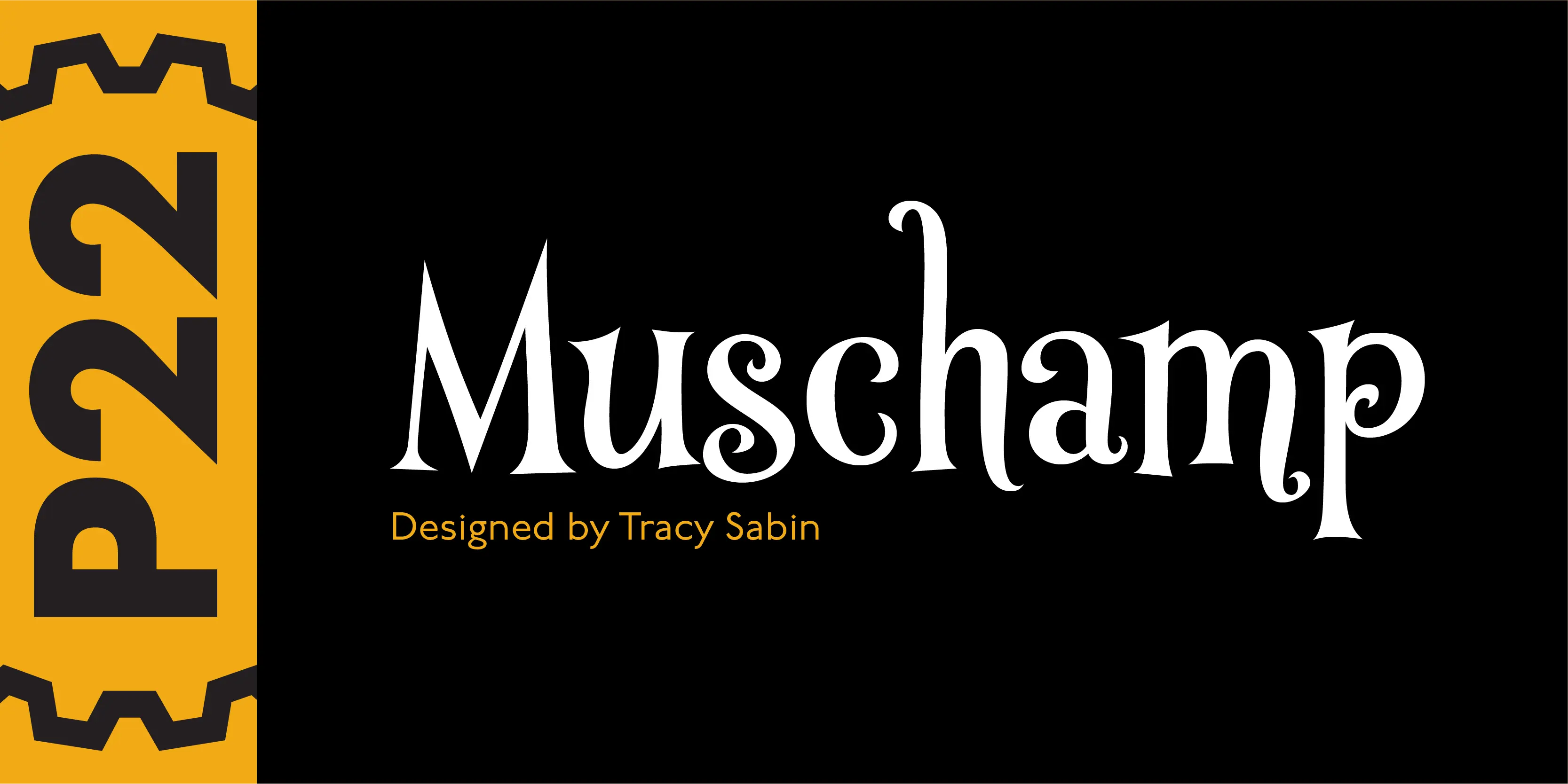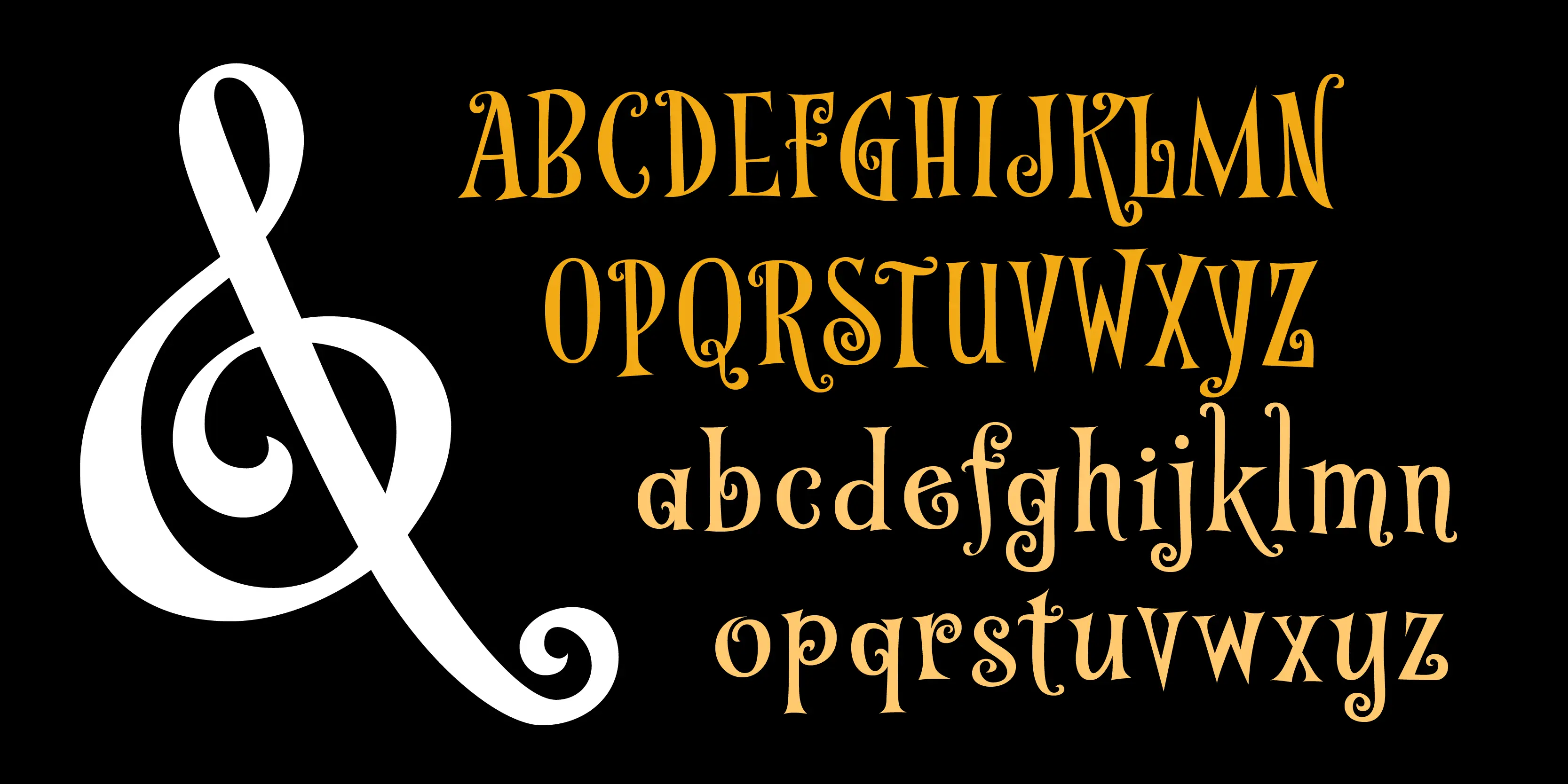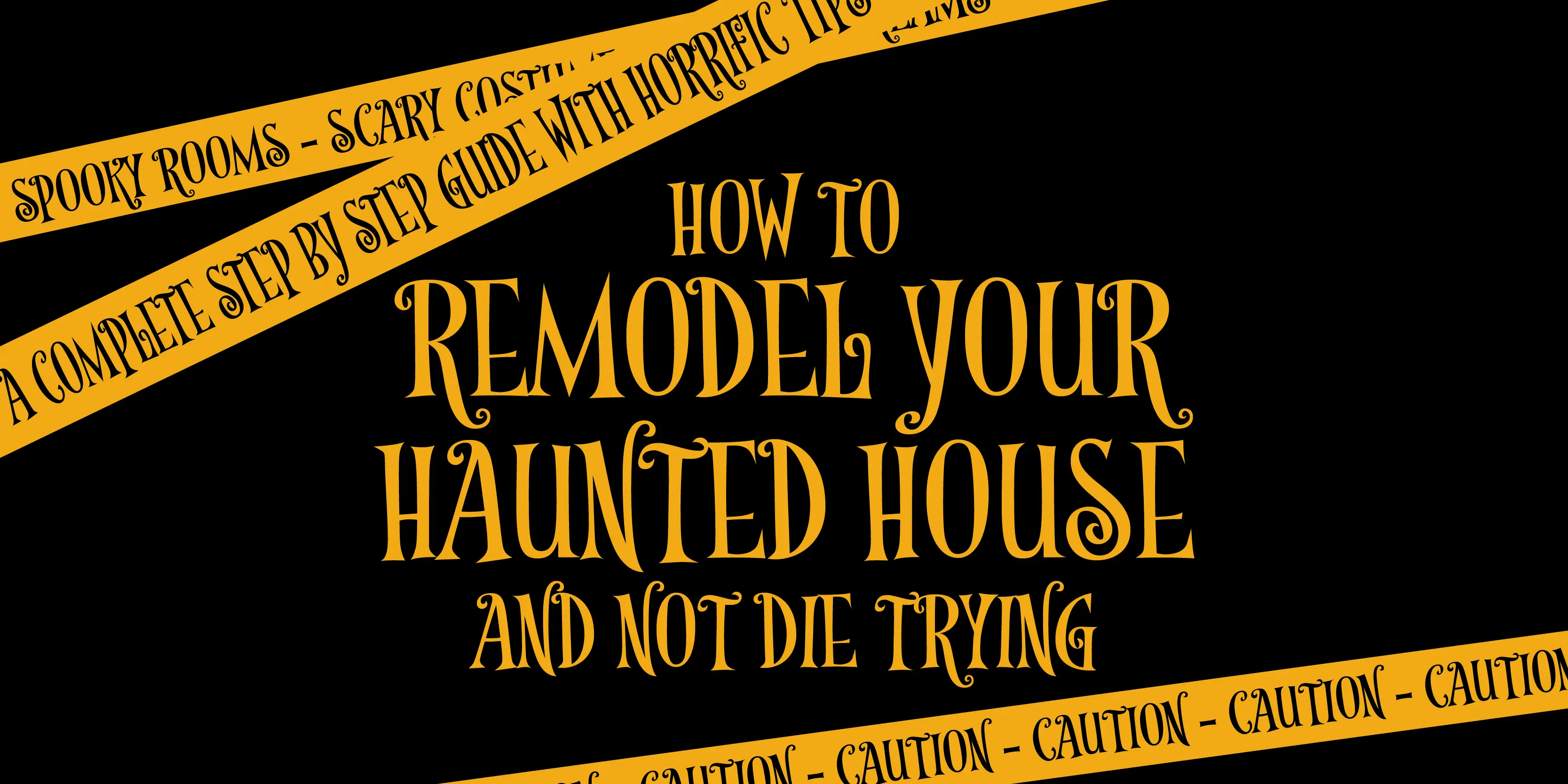
Muschamp Font
Muschamp
Prolific illustrator and veteran typographer Tracy Sabin draws on more than 40 years of multi-disciplinary design experience to bring us Muschamp Pro, a loopy, bouncy, free-form alphabet adaptable for many uses. It embodies the spirit of the massive art nouveau wave that broke out in the late 1950s and ingrained itself in popular culture for about three decades on both sides of the pond. Carefree, playful, rhythmic and versatile, this font evokes plenty of album jackets, children book covers, and cartoon titling from the times that really defined those design expressions and enshrined them as essential pop art. Muschamp Pro comes with plenty of alternates, ligatures of both standard and discretionary varieties, and extended Latin language support, all contained in a glyphset of more than 500 characters. Use this font if you want your design to transmit a message of crafty and joyful activity.